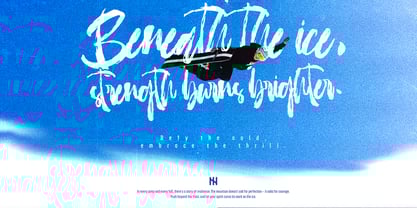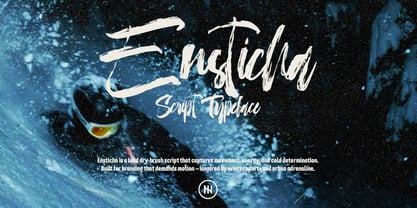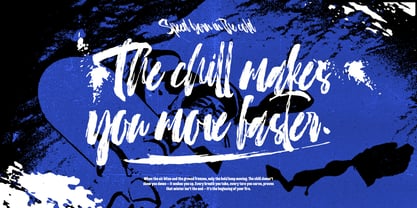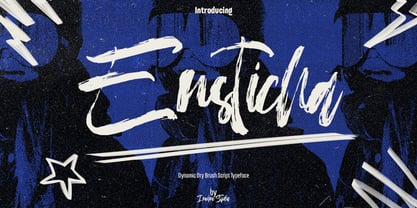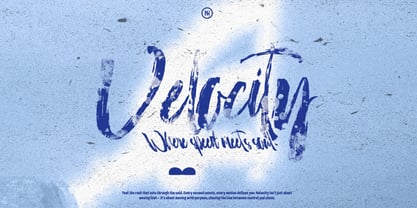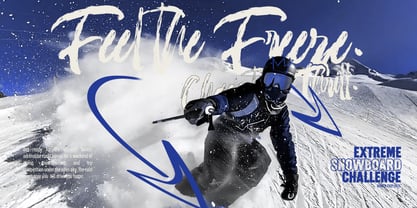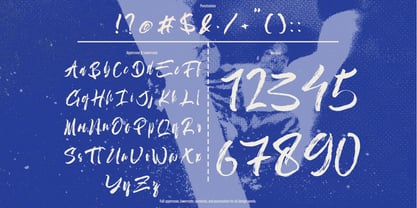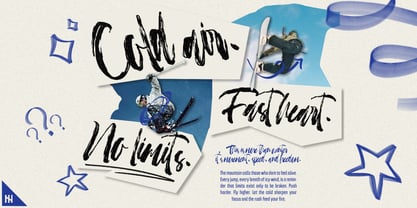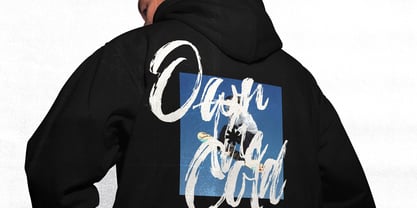
Ensticha
by Inviline
The Ensticha Font Family was designed by Virgiawan Listanto and published by Inviline. Ensticha contains 1 styles. More about this family
Ensticha is a bold dry brush script font that captures adrenaline and energy in every stroke — inside you’ll find complete uppercase, lowercase, numerals, punctuation, and high-resolution brush texture that’s perfect for edgy branding, extreme sports poster, streetwear packaging, cold-weather event promos, bold title typography, or any design that demands motion and impact.
Designers: Virgiawan Listanto
Foundry: Inviline